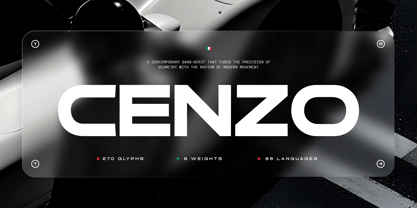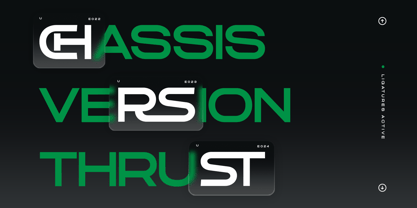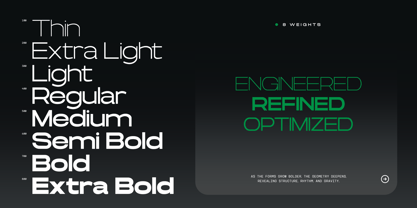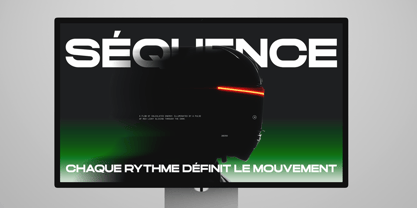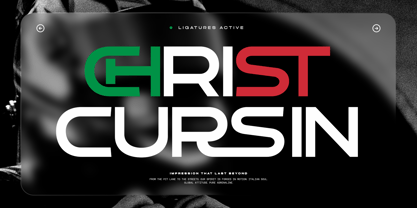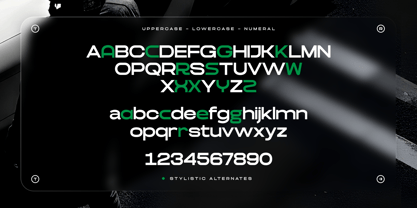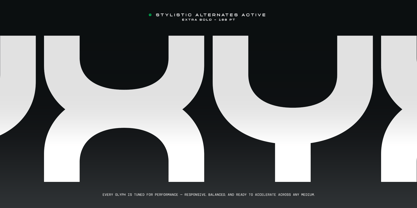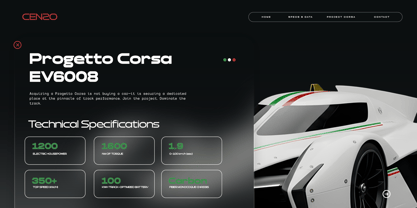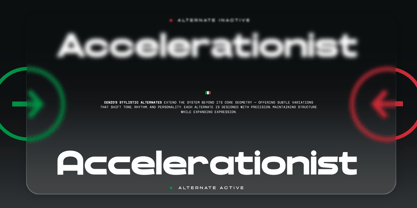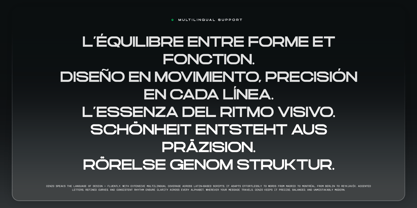
TRT Cenzo Monaco
by True Type Lab
The TRT Cenzo Monaco Font Family was designed by Yusilo Oktaprima Ardani and published by True Type Lab. TRT Cenzo Monaco contains 8 styles and family package options. More about this family
When I began working on TRT Cenzo, I was inspired by the bold and clean geometry found in iconic modernist typefaces. Those forms conveyed a sense of strength, clarity, and futuristic appeal — but I wanted to reinterpret them in a way that feels sharper, more dynamic, and perfectly suited for today’s design landscape. Subtle cuts and balanced proportions give TRT Cenzo its distinctive, forward-looking personality while maintaining strong readability. The result is TRT Cenzo — a modern and futuristic sans serif typeface that blends minimalism with bold visual impact. Designed for branding, display titles, interfaces, and editorial projects, it brings a sleek, contemporary edge to any layout. TRT Cenzo also includes a selection of alternate characters and standard ligatures, allowing designers to explore creative variations and achieve unique typographic expressions with ease.
Designers: Yusilo Oktaprima Ardani
Foundry: True Type Lab
Founded by Yusilo Oktaprima Ardani, True Type Lab is a creative studio dedicated to exploring typography through a balanced approach of artistry and functionality. What began as a deep fascination with letterforms and typographic details has evolved into a studio that crafts typefaces with strong personality, distinctive character, and versatile usability.At True Type Lab, every letter is treated as a work of art with a vital role in delivering visual messages. We combine timeless design principles with modern techniques, creating fonts that are not only aesthetically pleasing but also optimized for diverse applications—both in print and digital environments. Our design range includes elegant serifs, modern sans-serifs, and experimental display fonts, each developed through thorough research and a meticulous creative process.With a focus on readability, flexibility, and visual identity, True Type Lab is committed to creating typefaces that empower designers, brands, and creators to craft impactful visual communication. From global brand identities to independent editorial projects, our fonts are designed to help stories and messages come alive on every page.